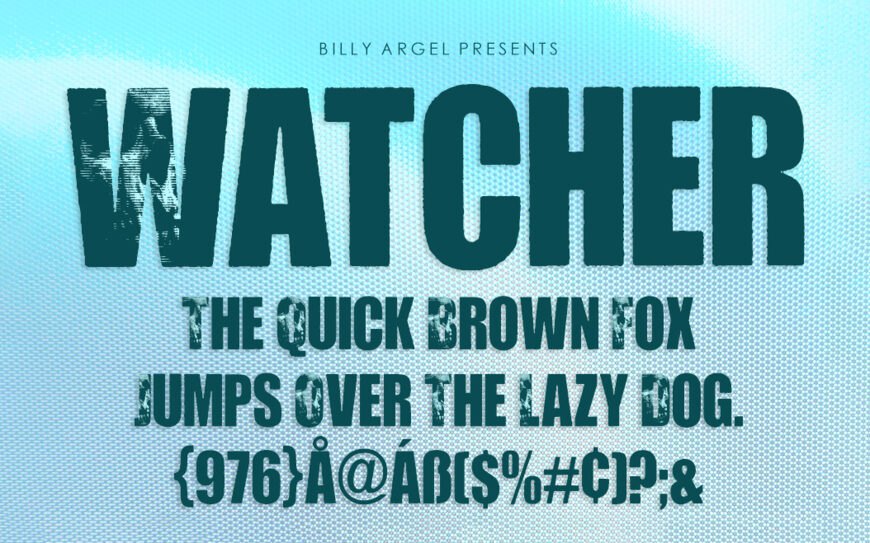
Watcher Font
Watcher is a heavy, destroyed-style sans-serif typeface created by Billy Argel. Featuring a rugged, distressed aesthetic, this high-impact display font comes with two layered font files available in bold and bold italic weights.
Its raw visual edge makes it an ideal choice for streetwear graphics, t-shirt prints, band merchandise, poster designs, eye-catching logos, and high-energy branding projects requiring a bold, tactile look.